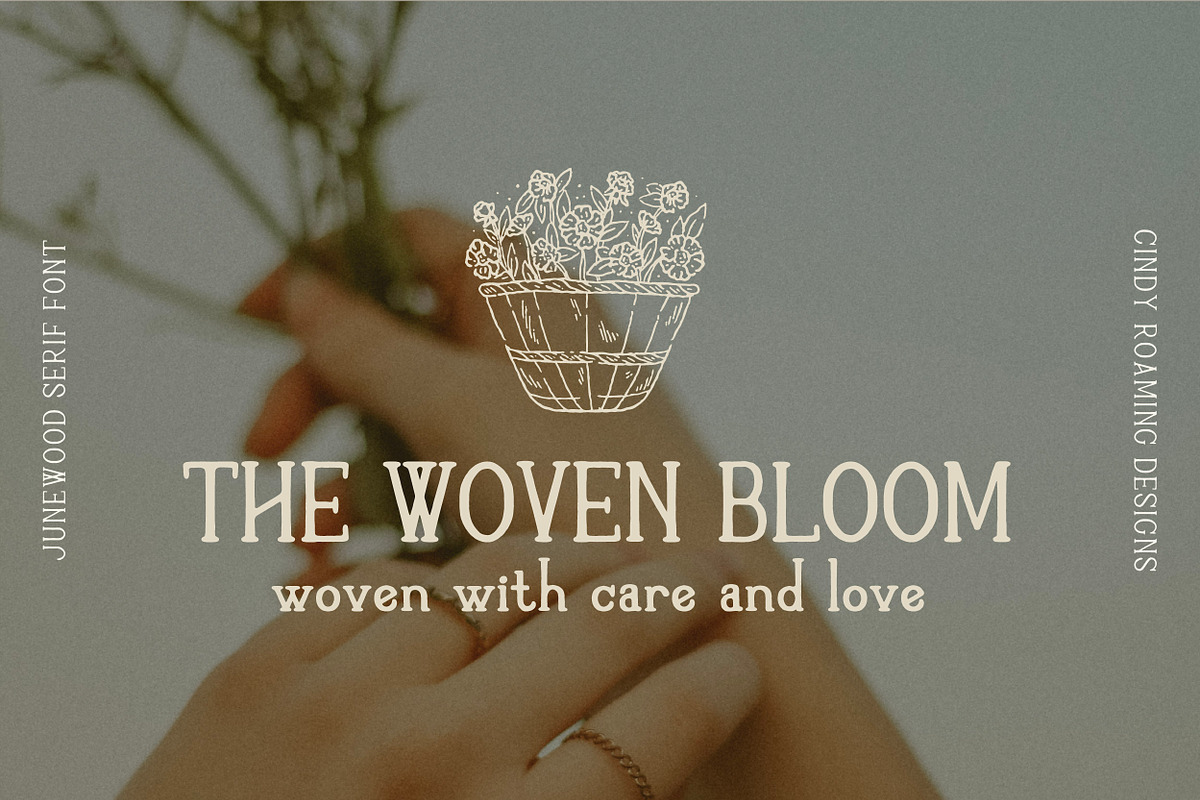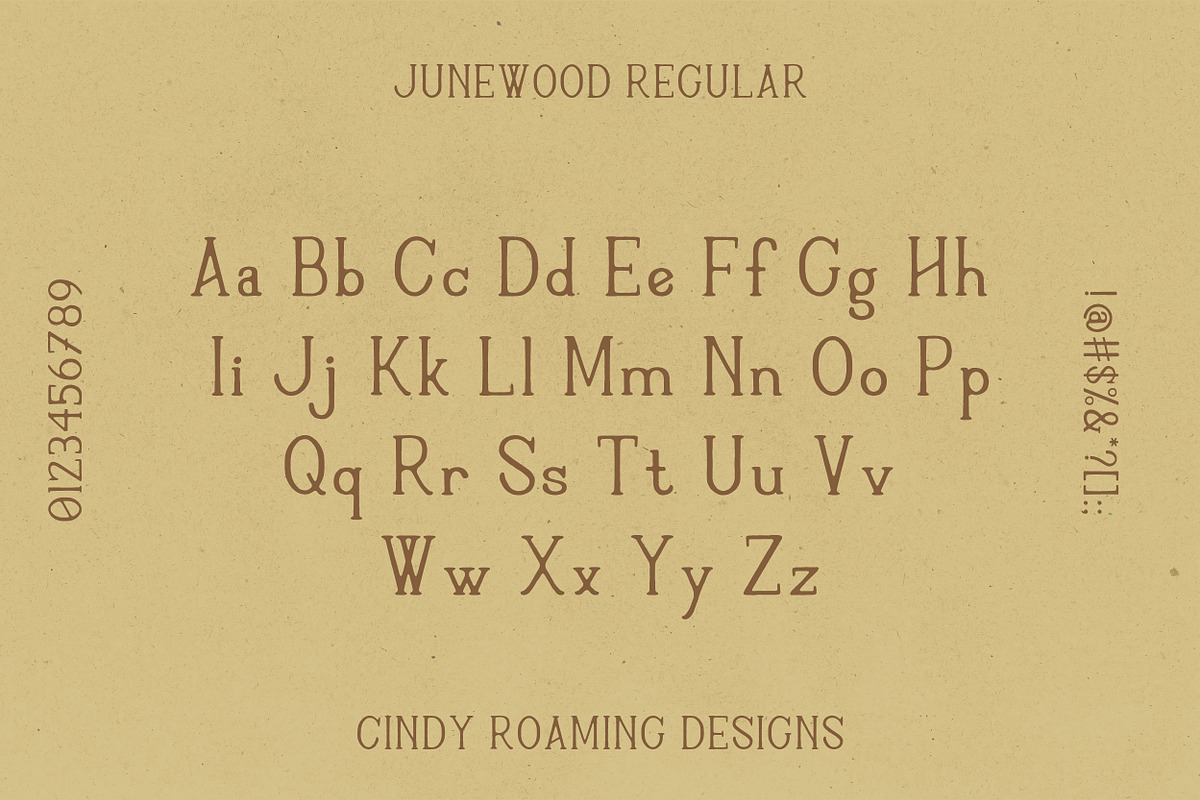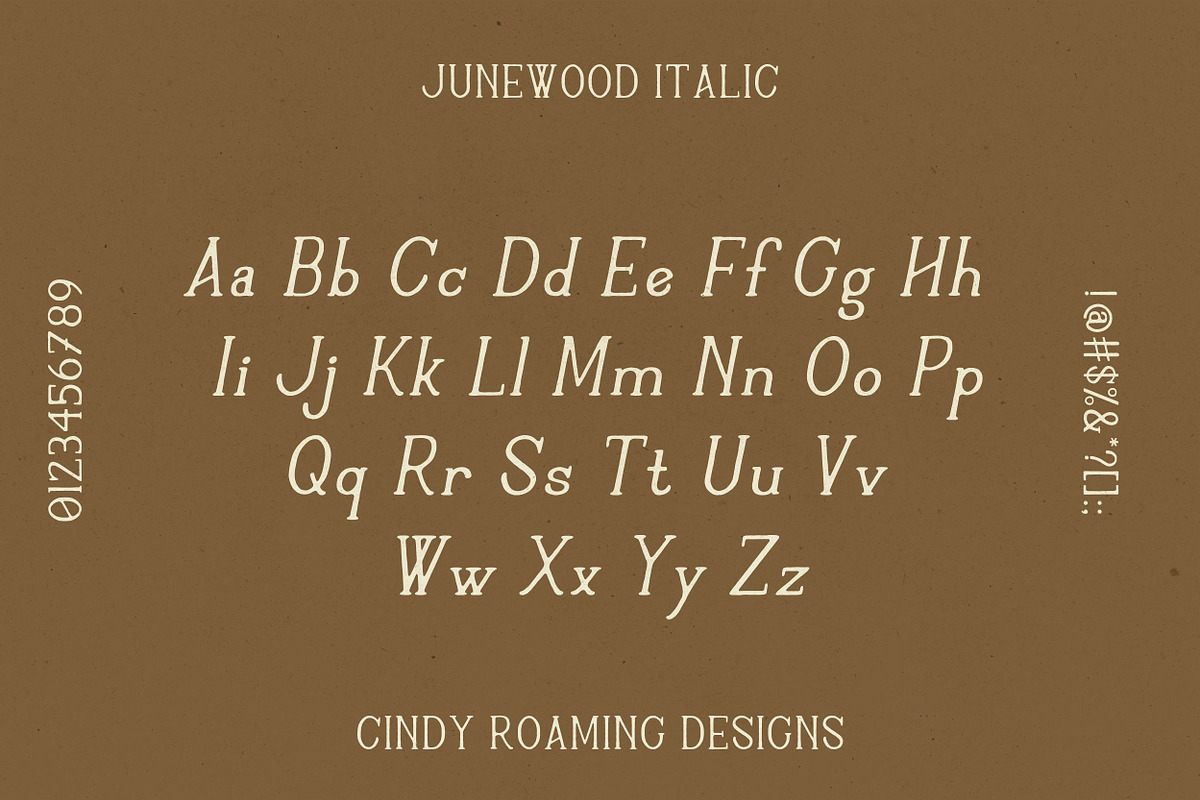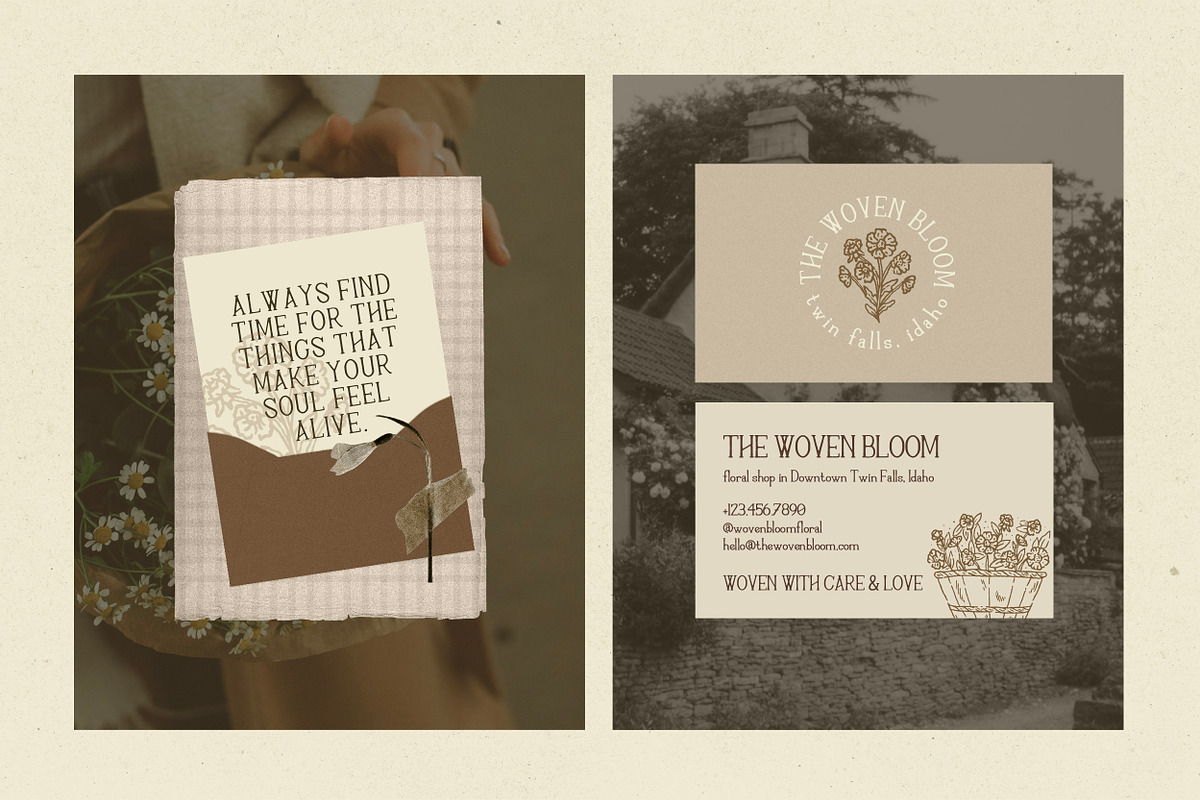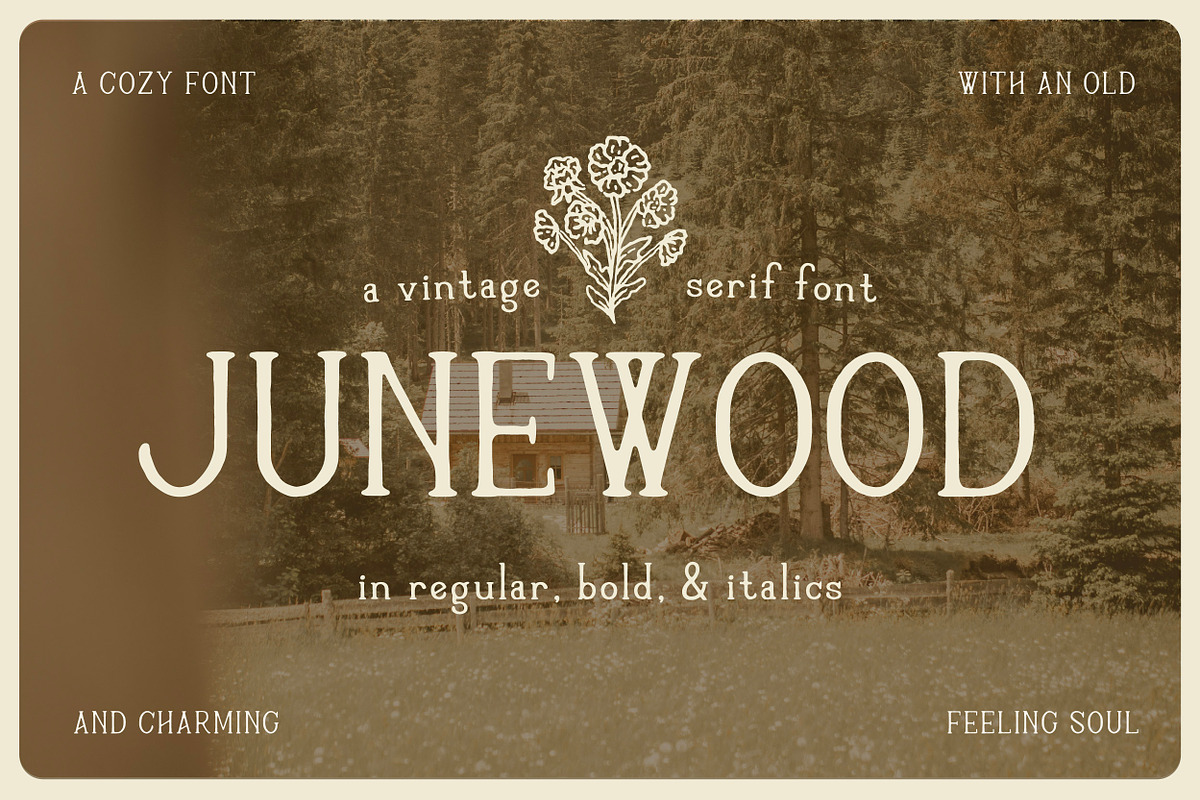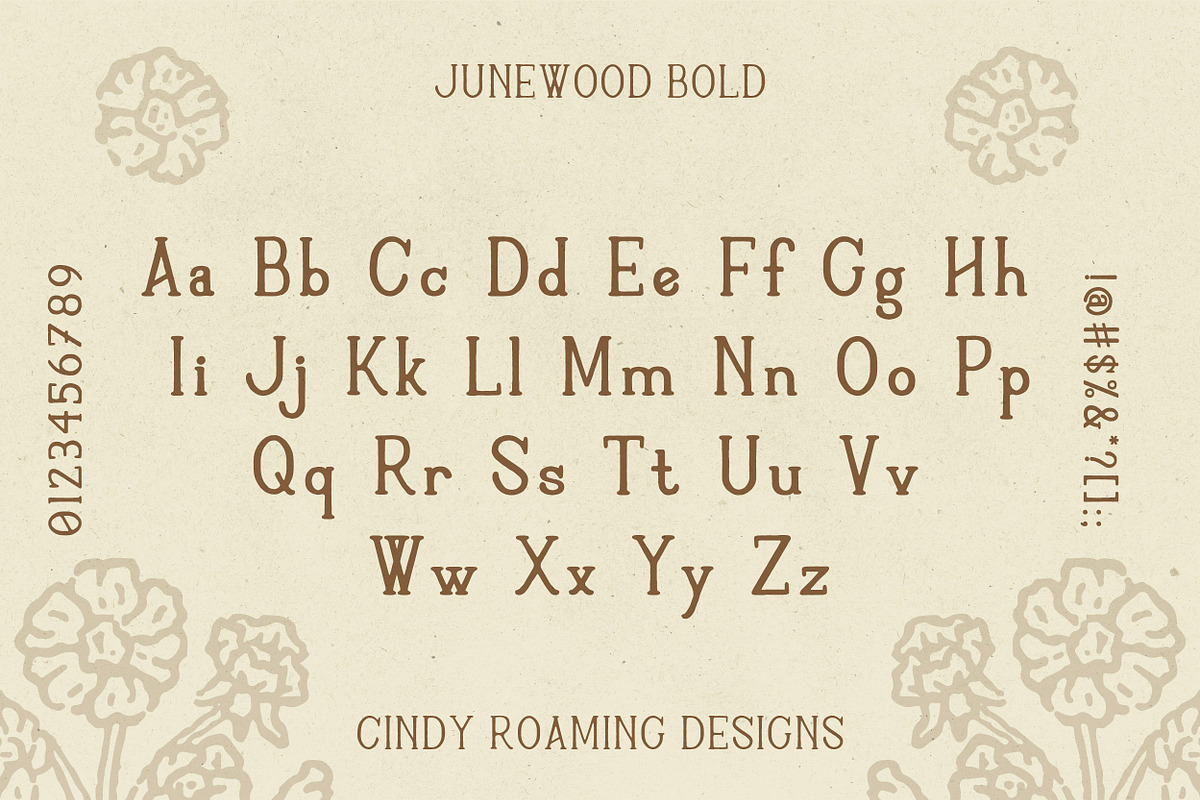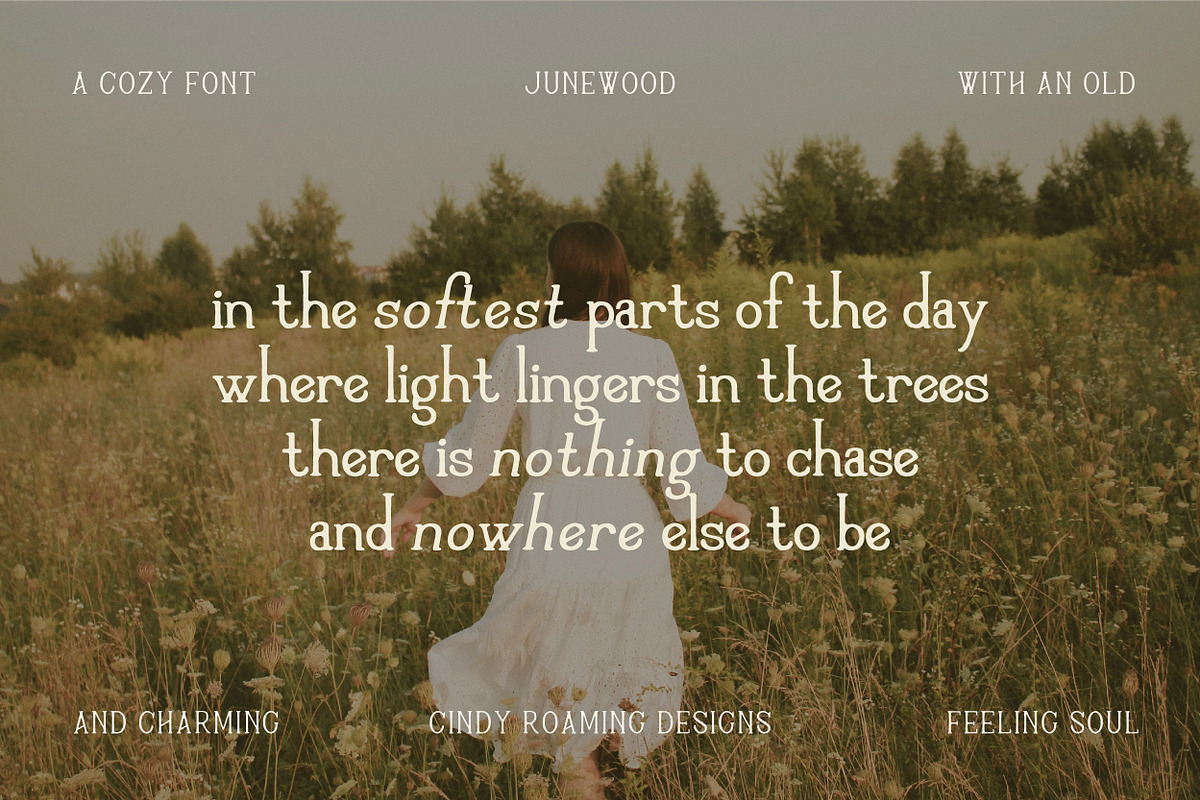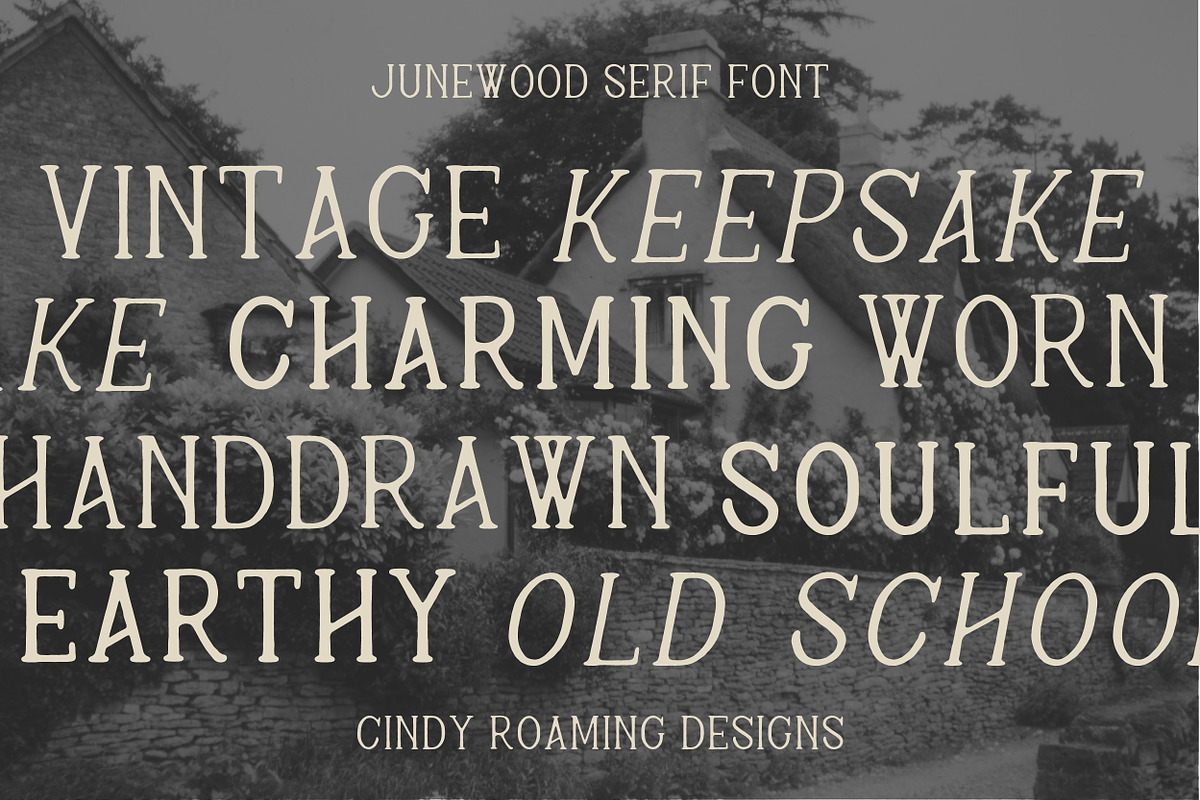
Junewood by Cindy Roaming Designs
Junewood is a cozy, handdrawn serif that brings a sense of lived-in charm to vintage designs 🎞️
This font design is inspired by vintage print, folk art, and the feeling of slow living. It was created to feel handmade, like something you’d find pressed between the pages of a good book or printed on a well loved photo album. Soft, familiar, and quietly timeless. Junewood carries that feeling of stepping into something new while still feeling rooted in what’s always been.
Includes: uppercase & lowercase letterforms, numbers, punctuation, italics, and even bolded type.
Use for logo design, packaging, print media, social visuals, and anything that calls for a little extra warmth and charm. I hope you love creating with Junewood as much as I loved making it 🤎